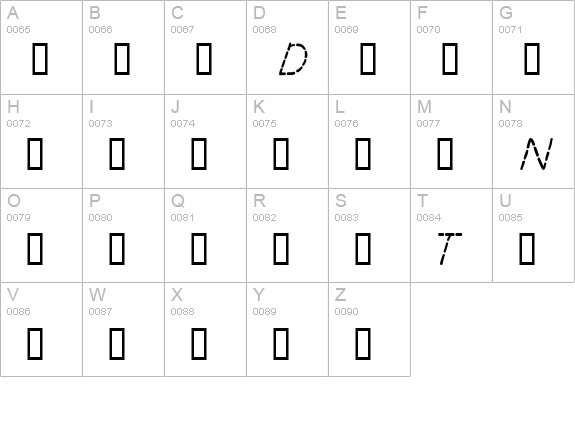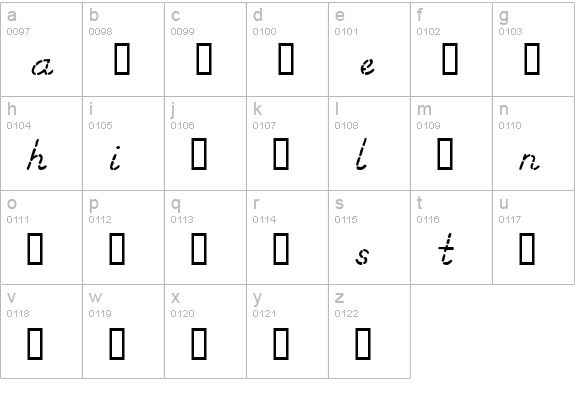
Dashed Italic Sample Font Details
Dashed Italic Sample is a distinctive, italic variant in the Dashed typeface family \xE2\x80\x94 well suited to design and typography projects.
Dashed Italic Sample font is a stylish and modern typeface that combines dashes with italic letterforms to create a unique and eye-catching design. This font is perfect for adding a contemporary touch to any project, whether it's a website, poster, or branding materials. The Dashed Italic Sample font is not only visually appealing but also versatile, making it suitable for a wide range of applications. Its clean lines and bold strokes make it easy to read, while the dashes add a dynamic element that sets it apart from other fonts. Best of all, this font is available for free download at FontsMarket.com. So whether you're a designer looking to refresh your font collection or just someone who appreciates good design, be sure to check out the Dashed Italic Sample font today and add a touch of modern flair to your next project.